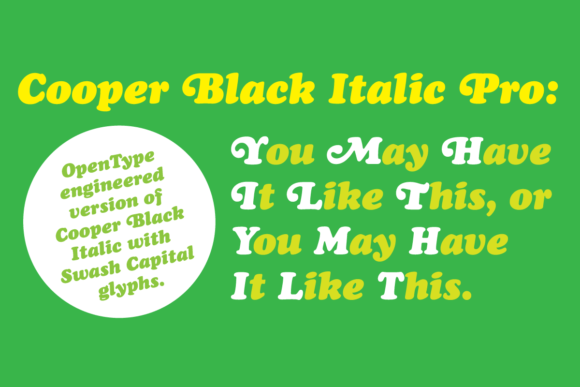
When it comes to fonts that ooze personality and timeless charm, Cooper Black Pro stands tall. Known for its bold curves, warm softness, and iconic vintage vibe, Cooper Black has been shaping design history for nearly a century. From classic advertisements to modern logos and album covers, this font continues to captivate designers with its unmistakable, friendly style.
What Is Cooper Black Pro Font?
Originally designed by Oswald Bruce Cooper and released by the Barnhart Brothers & Spindler type foundry in 1922, Cooper Black became instantly recognizable thanks to its fat, soft-edged letterforms. It wasn’t just another heavy serif; it had warmth and fun – a departure from the rigid, formal serifs of its time.
Fast-forward to modern typography, and Cooper Black Pro is a thoughtfully digitized and expanded version that honors Oz Cooper’s original hand-drawn style. Among its features:
A full upper and lowercase set
OpenType swash capitals as alternate glyphs
Smooth, consistent curves without the distortions often seen in older digital versions
Italic variants, like Cooper Black Italic Pro, that include extra swash letters (I, K, L, W, and X) which weren’t part of Cooper’s original release
These updates allow designers to recreate authentic vintage looks while keeping designs polished and professional.
Why Designers Love Cooper Black Pro
1️⃣ Iconic & Instantly Recognizable
Few fonts are as recognizable as Cooper Black. Its soft, billowing forms have appeared everywhere from the Beach Boys album covers to 1970s advertising, making it feel nostalgic yet timeless.
2️⃣ Friendly & Bold Personality
Cooper Black’s thick strokes and rounded edges give it a unique warmth, ideal for projects that want to be bold yet approachable.
3️⃣ Versatile Usage
While especially striking in display sizes, Cooper Black Pro can also be used in logos, packaging, posters, and editorial work.
4️⃣ Swash Alternates Add Flair
The swash caps in Cooper Black Italic Pro help designers add a playful, decorative twist that elevates titles, initials, and logos.
5️⃣ Historical & Cultural Legacy
Using Cooper Black Pro connects your design to a century-long tradition of American vernacular design, bridging retro style and modern applications.
Using Cooper Black Pro in Your Designs
🎨 Logos & Branding
Its warm, heavy curves create friendly yet memorable brand identities, perfect for vintage cafés, retro clothing brands, or creative studios.
📦 Packaging
Ideal for products seeking a nostalgic or artisanal feel, from craft beers to organic soaps.
📚 Editorial & Magazines
Use Cooper Black Italic Pro swash caps for feature headlines or drop caps to add stylish flair.
🎶 Album Covers & Posters
Rock bands and indie artists love Cooper Black for its throwback vibe and bold presence.
🖼 Social Media & Ads
Create eye-catching posts that feel both playful and professional.
💡 Tip: Pair it with a clean sans-serif like Helvetica, Futura, or Montserrat to keep layouts modern and balanced.
Pairing Tips for Cooper Black Pro
To avoid overwhelming your design:
Pair Cooper Black Pro with simple, neutral body fonts.
Use swash caps sparingly: great for initials, logos, or single-word headlines.
Keep spacing generous; the thick strokes can crowd easily.
Final Thoughts: Bold Heritage Meets Modern Design
Few typefaces have stood the test of time like Cooper Black. Its generous, friendly curves feel just as fresh on modern packaging and web design as they did on 1920s posters. With Cooper Black Pro and its italic swash variants, designers gain even more creative flexibility and authenticity.